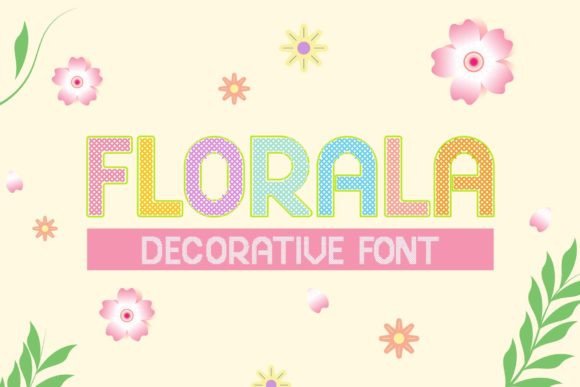
Flourish your designs with Florala Font, a delightful decorative font that weaves elegance into every letterform. Embrace the whimsical charm of this regular and stoke lettered wonder, designed by the talented GGothji. Let Florala Font transport you to a world of creativity, where imagination knows no bounds.
Immerse yourself in the versatility of Florala Font, a font that effortlessly adapts to a myriad of projects. Whether you're crafting whimsical cartoon designs, bringing life to spring-themed creations, or simply seeking a touch of enchantment in your designs, Florala Font is your perfect companion. Its enchanting curves and playful strokes add a captivating allure to your projects, making them truly unforgettable.
Florala Font is not merely a collection of letters; it's an invitation to unleash your artistic spirit. Its intricate details and graceful lines evoke a sense of wonder, inspiring you to create designs that resonate with your audience. Whether you're a seasoned designer or just starting your creative journey, Florala Font will elevate your projects to new heights of beauty and charm.
Step into a realm of endless possibilities with Florala Font. Its captivating aura will transform your designs into captivating masterpieces, leaving a lasting impression on all who encounter them. Embrace the magic of Florala Font and embark on a creative adventure like never before.